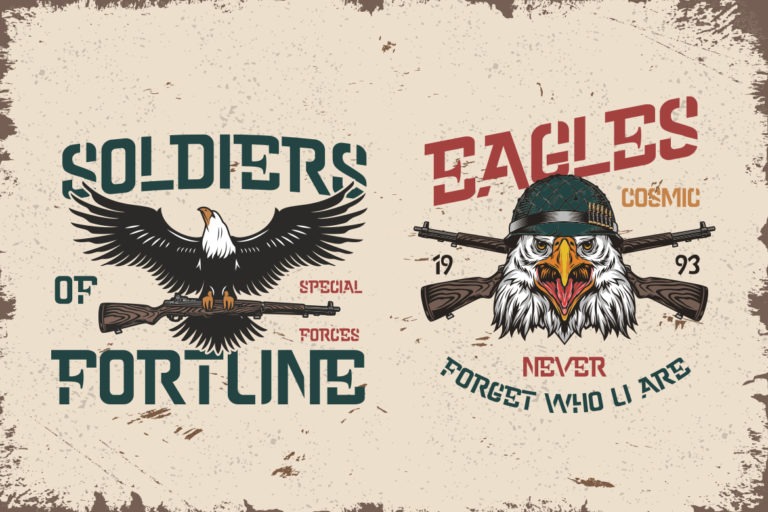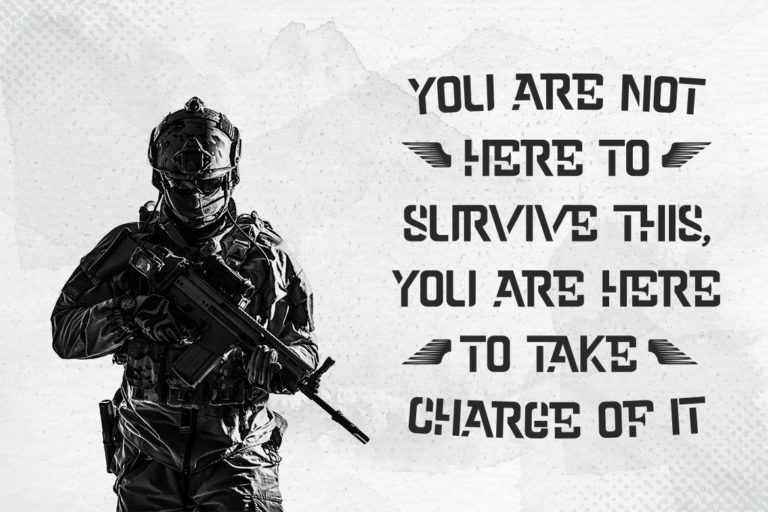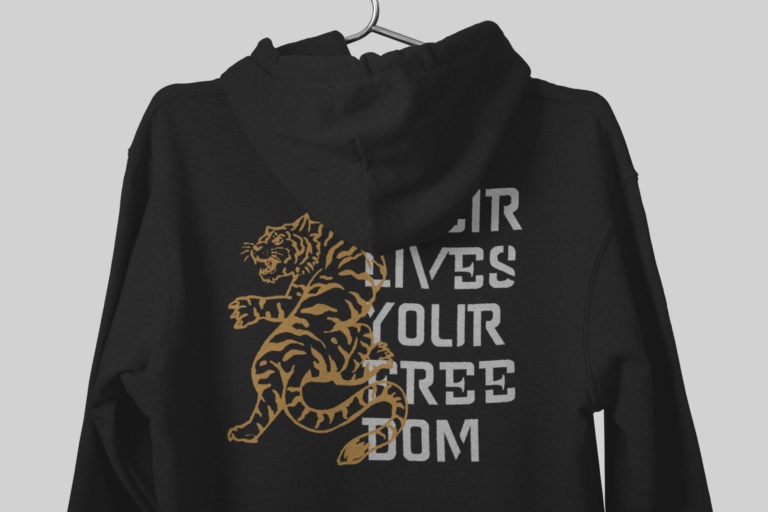
Cold Army Display Font
A new geometric font for a futuristic minimalist logo design. with this pretty all-caps case it’s very versatile and looks great in any context. Strong and delicate it makes a statement when used. Use this font for your designs and explore its endless possibilities.